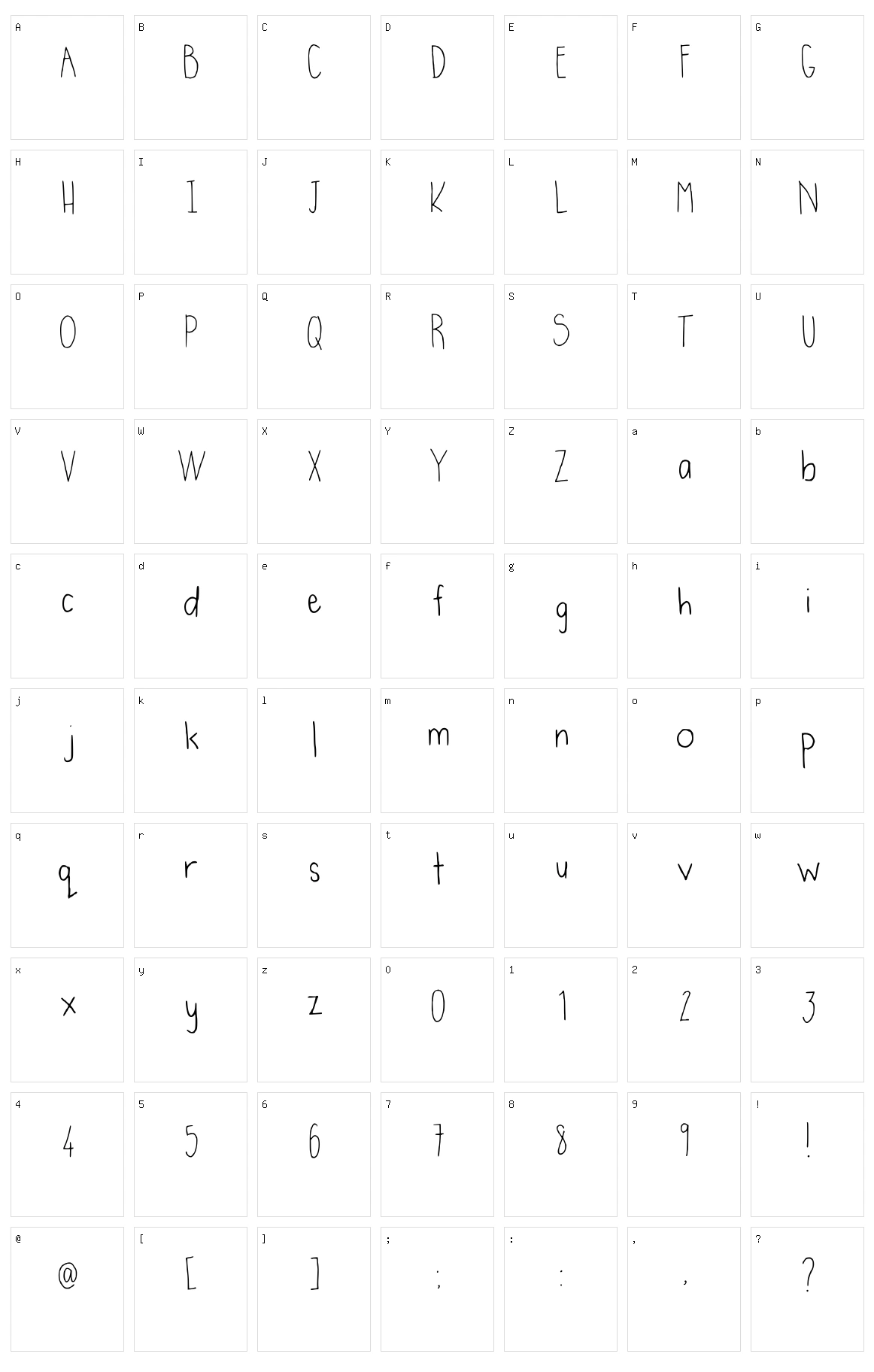
The free font Handwrittening is carefully designed by Alia Nadzirah, showcasing a thoughtful balance of creativity and usability and falls under the Script font style. When you download the ZIP file, it contains only 10.82 KB of font files, making it lightweight and quick to download. Please review the license details below to understand permitted usage and distribution rights. If license information is not available, we recommend using this font for personal projects only or contacting the author directly for commercial usage permissions.